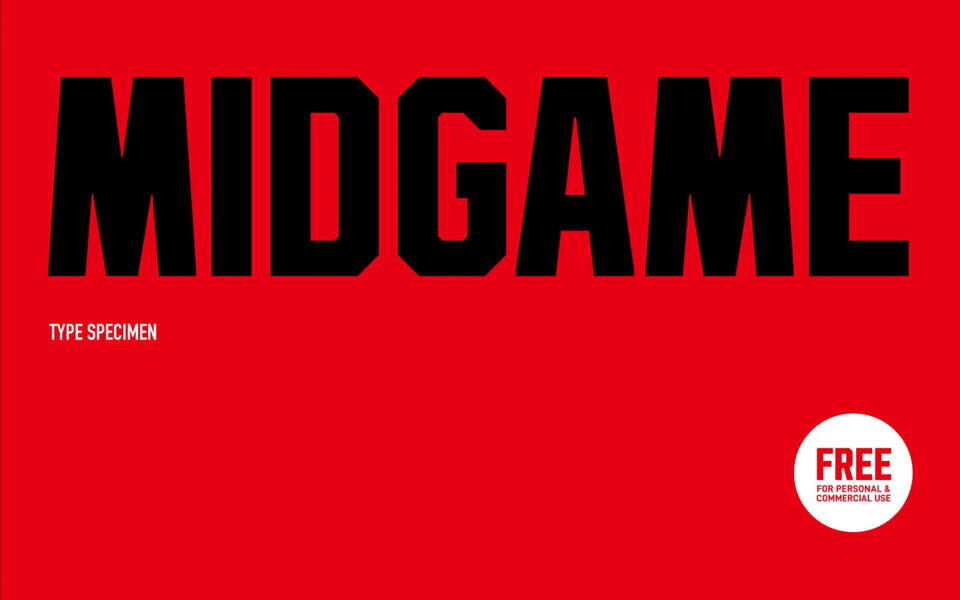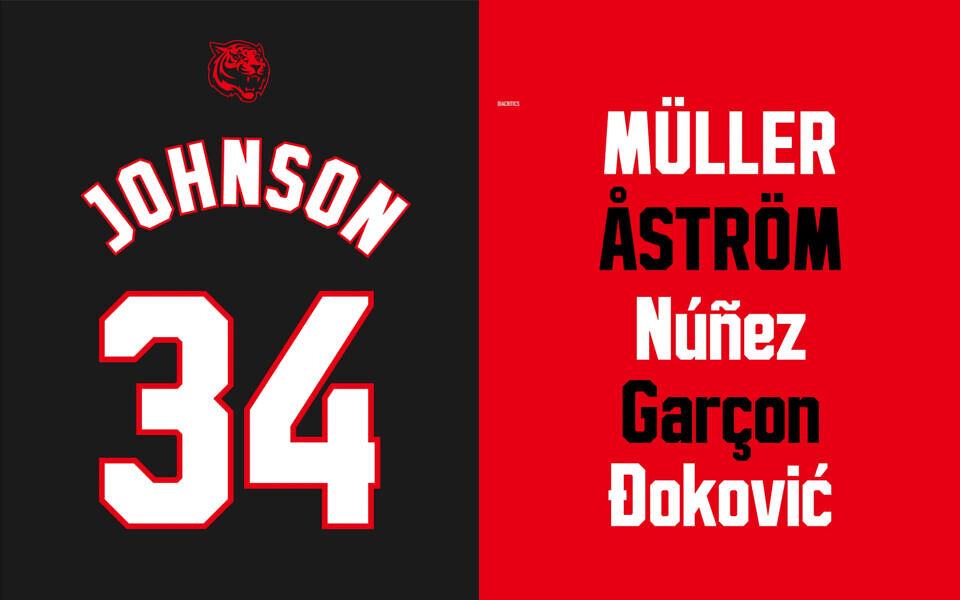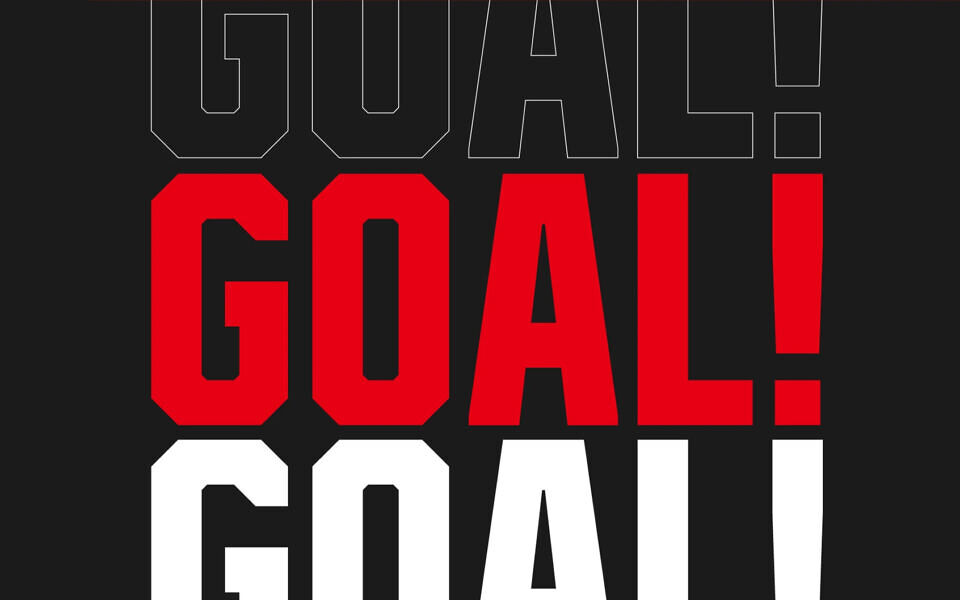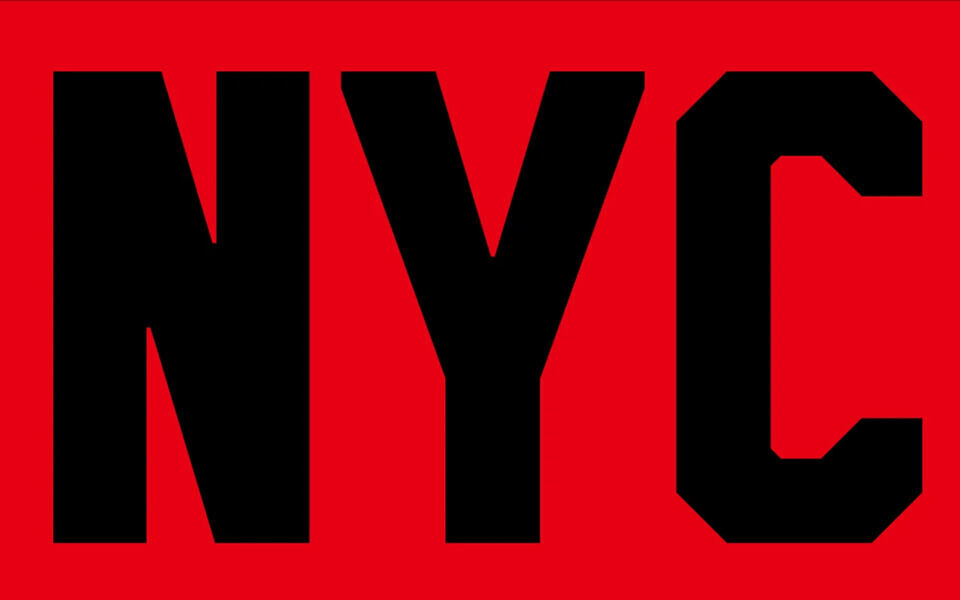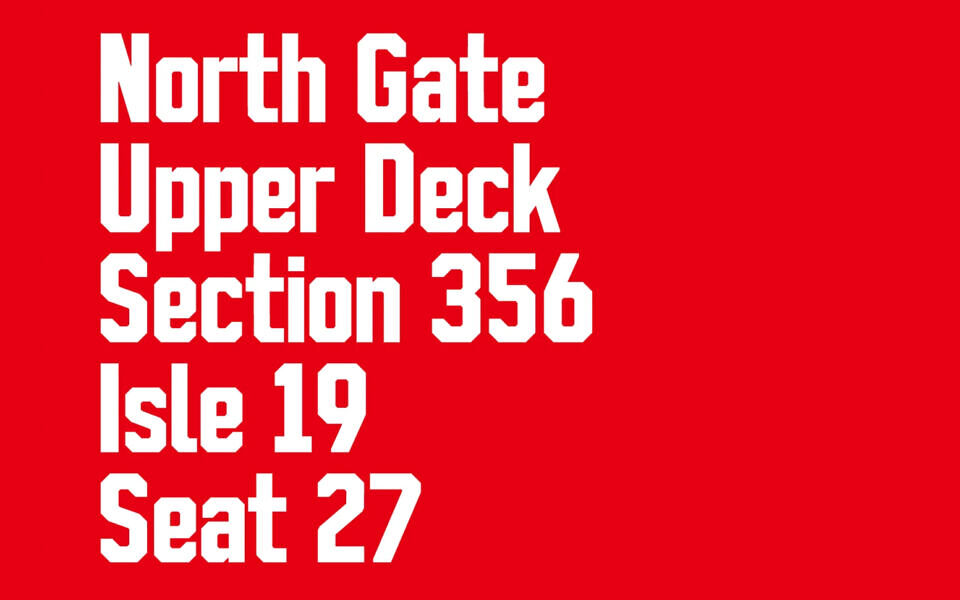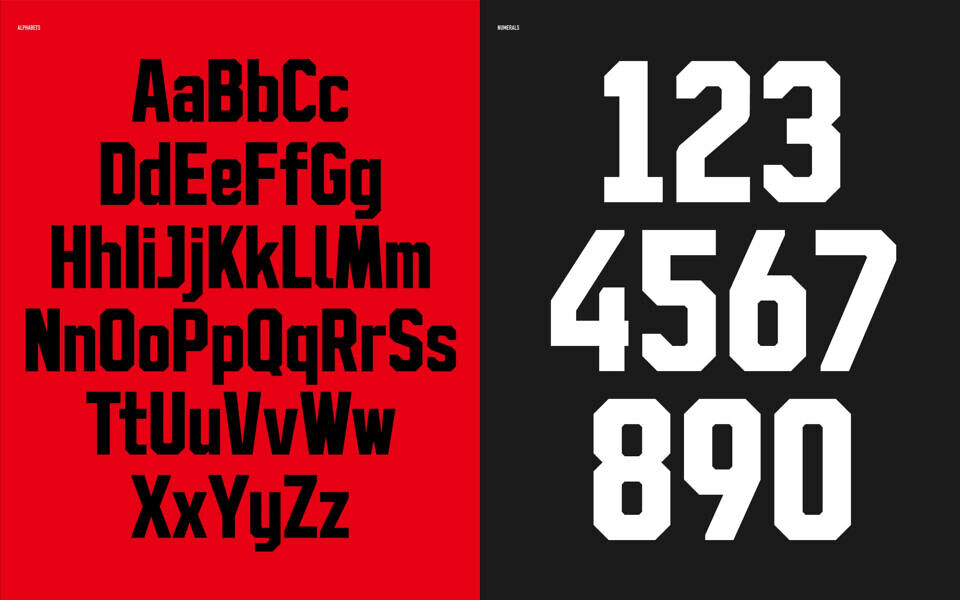
Midgame is a bold, high-impact display font with strong geometric shapes and sharp angles, crafted for standout visuals in sports, esports, and dynamic branding. Its condensed, powerful letterforms deliver clarity and intensity, making headlines and logos instantly eye-catching.
With solid structure and modern styling, Midgame balances legibility and personality, perfect for posters, team identities, and promotional graphics. This free font brings strength and focused energy to any design requiring bold typographic presence.